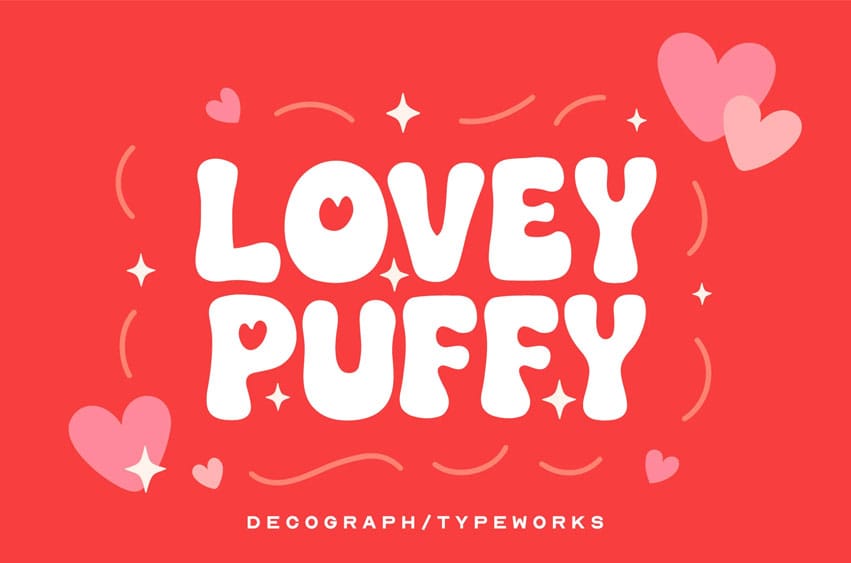
Lovey Puffy Font When playfulness and warmth collide — we bring you LOVEY PUFFY. A bold, bubbly display font designed to radiate happiness, charm, and pure cuteness.
With its rounded shapes and puffy letterforms, Lovey Puffy is perfect for projects that need a cheerful and youthful vibe. From Valentine’s cards, children’s books, birthday invitations, stickers, merchandise, to fun social media graphics — this typeface is made to spread love and positivity.
Though crafted with a playful spirit, Lovey Puffy’s versatility shines across both digital and print. It’s a joyful companion for any creative project that craves a touch of sweetness and fun.